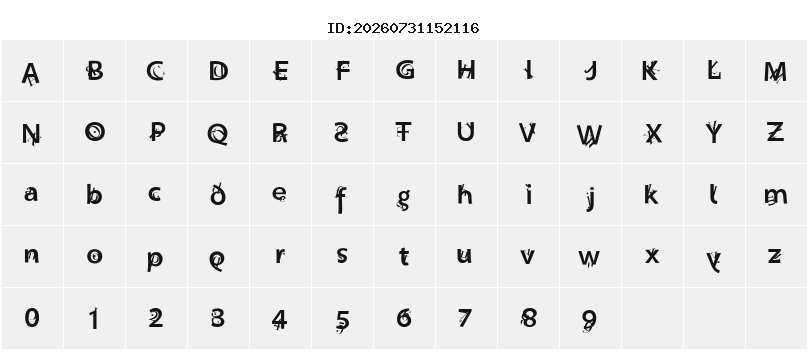
• Font Name: Lettersoup
About Lettersoup.ttf
Lettersoup.ttf is a modern, elegant sans-serif font designed for ultimate readability and visual harmony. Perfect for branding, headlines, web design, and print materials.